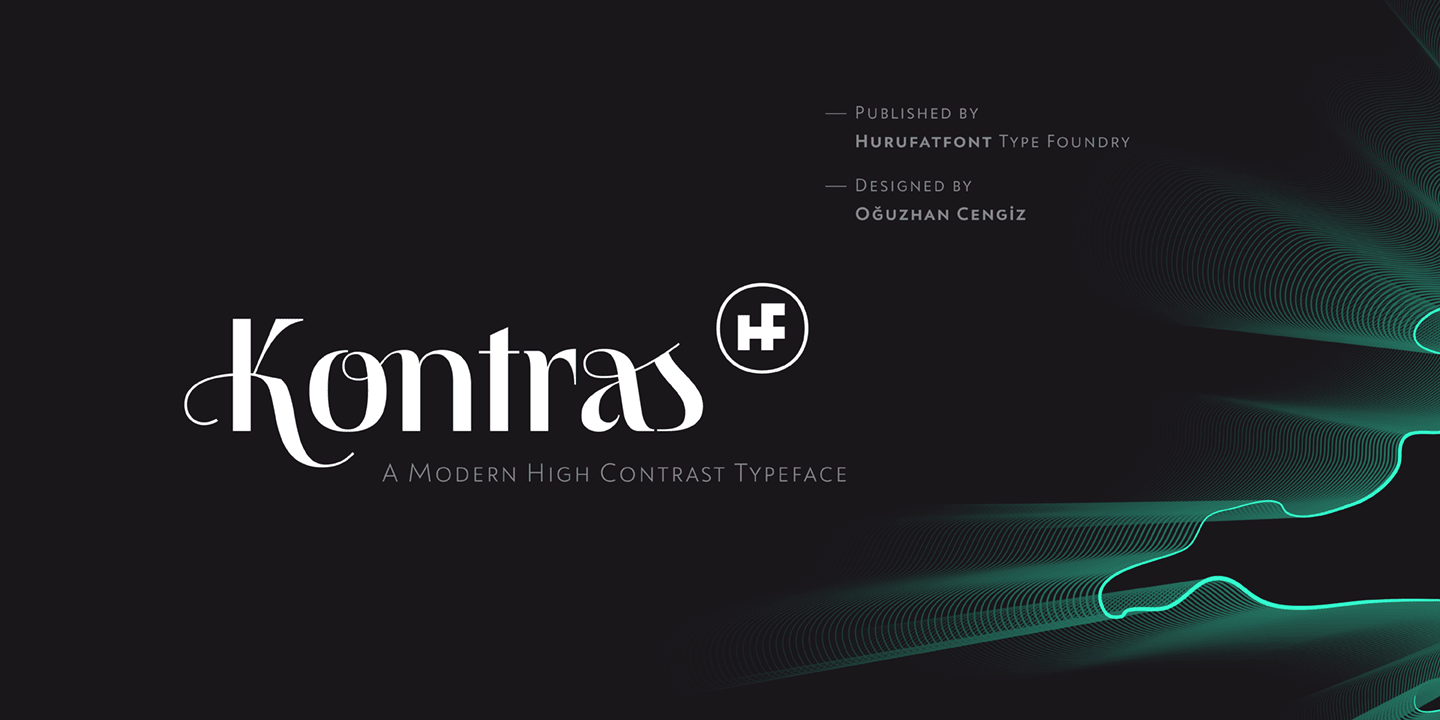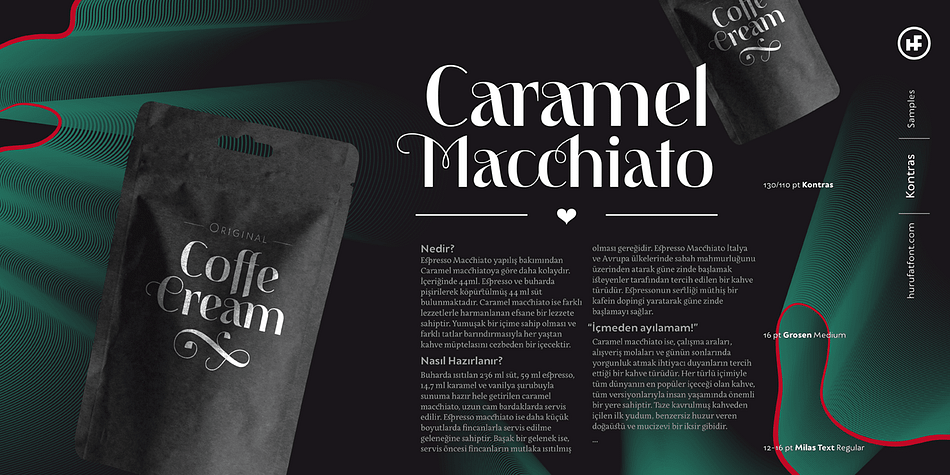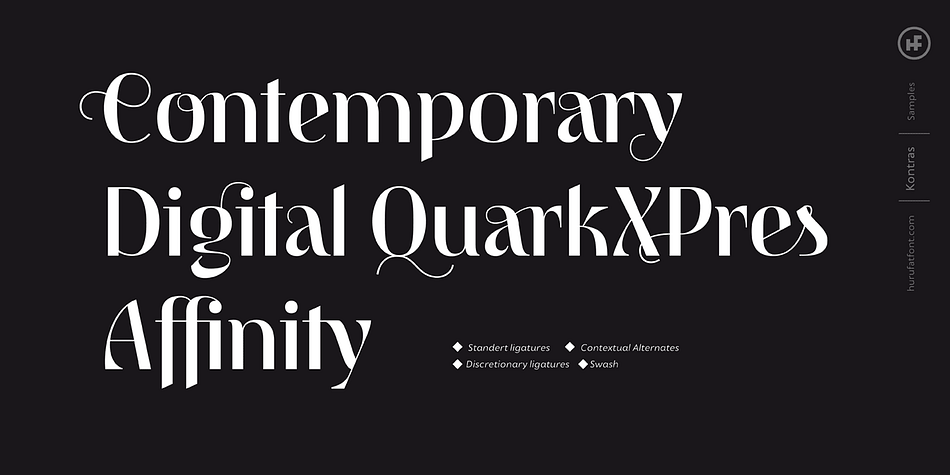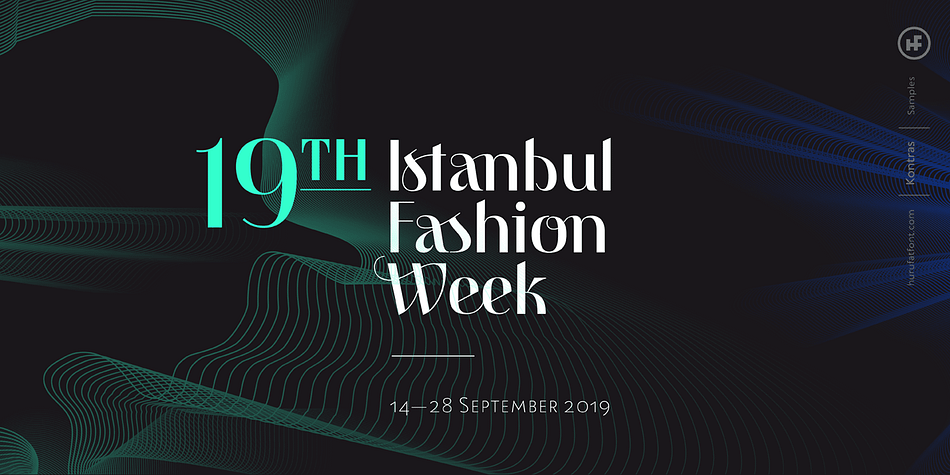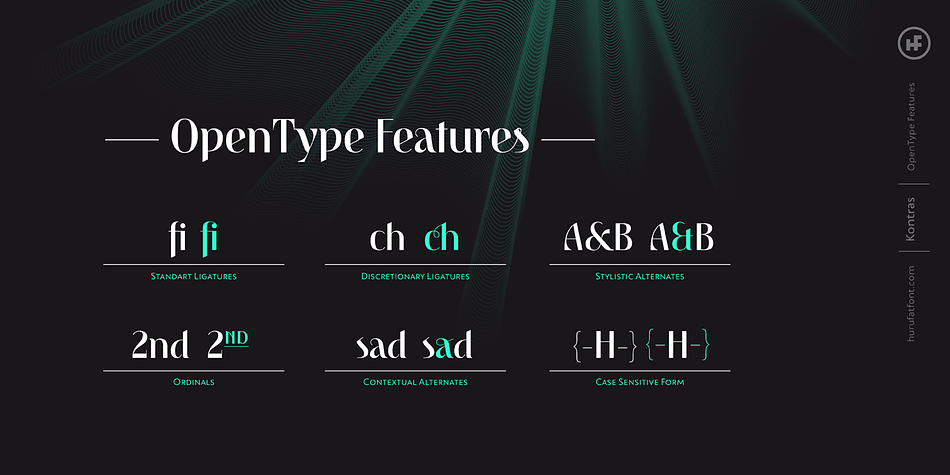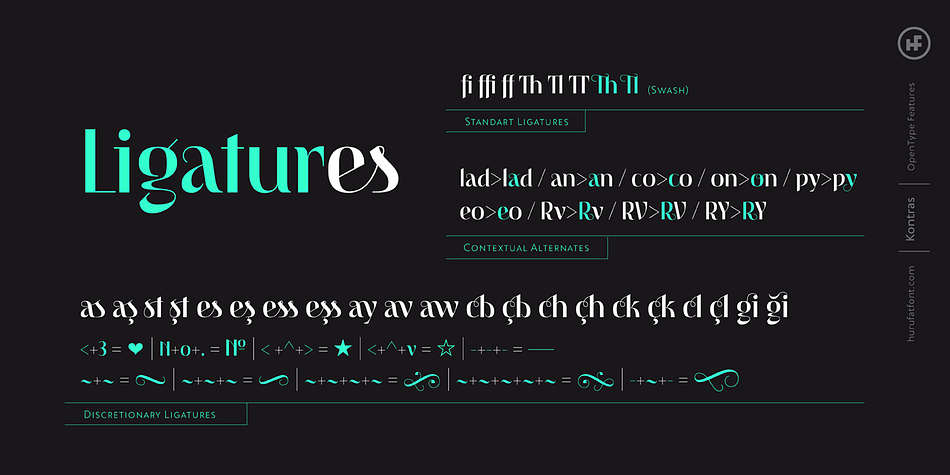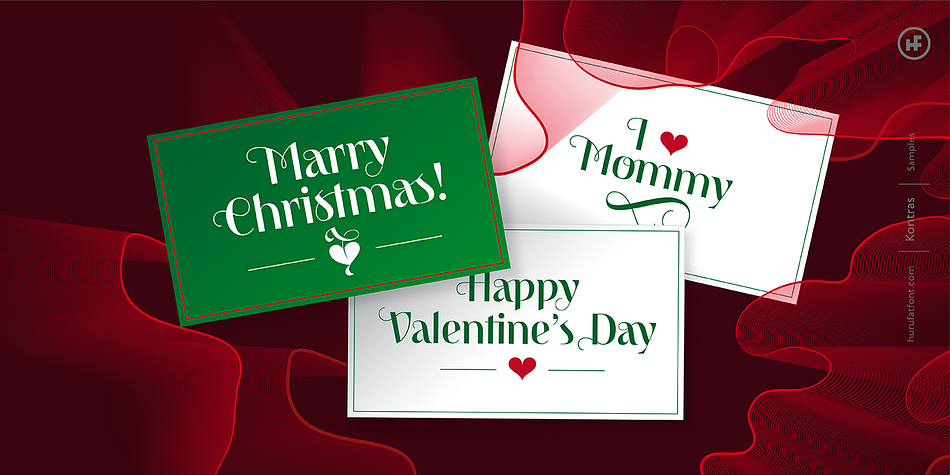
Designed by Oğuzhan Cengiz, Kontras is a display sans, retro and sans serif font published by Hurufatfont Type Foundry.
Kontras has high contrast at vertical and horizontal emphasis. When analyzing characters as a whole, it has contrast at style and practice too. Although has not much alternative characters, it provides decorative and grift effects because of this characteristic.
Kontras is ideal for brand building, packet designs, decorative titles and so on. However it contains standard ligatures, contextual alternates (R, a, &), discretionary ligatures and case-sensitive forms.